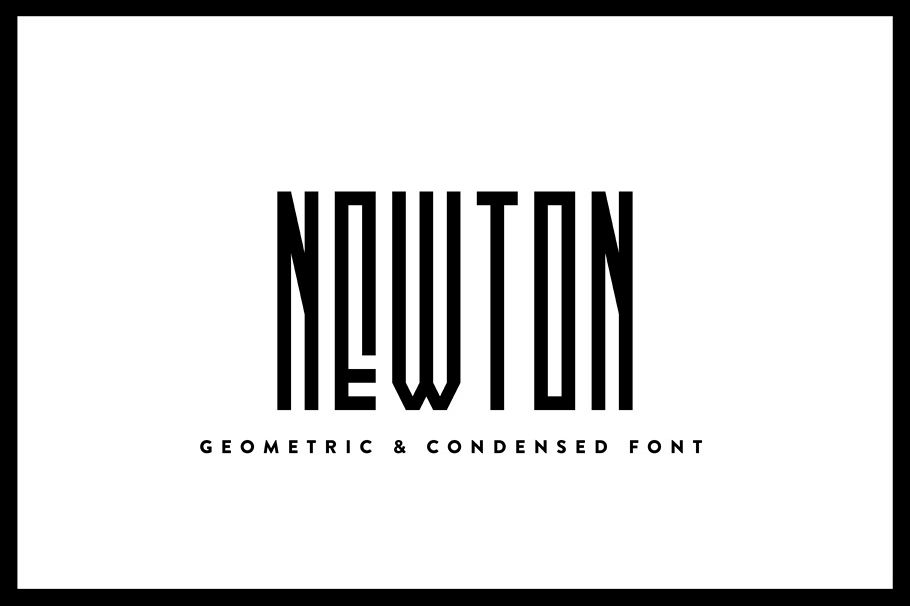
Created By Fiona Pouet
Newton
Newton - Font family
- Geometric & Condensed Type
• Uppercase Characters
• Lowercase Characters
• Regular + Bold + Outline version